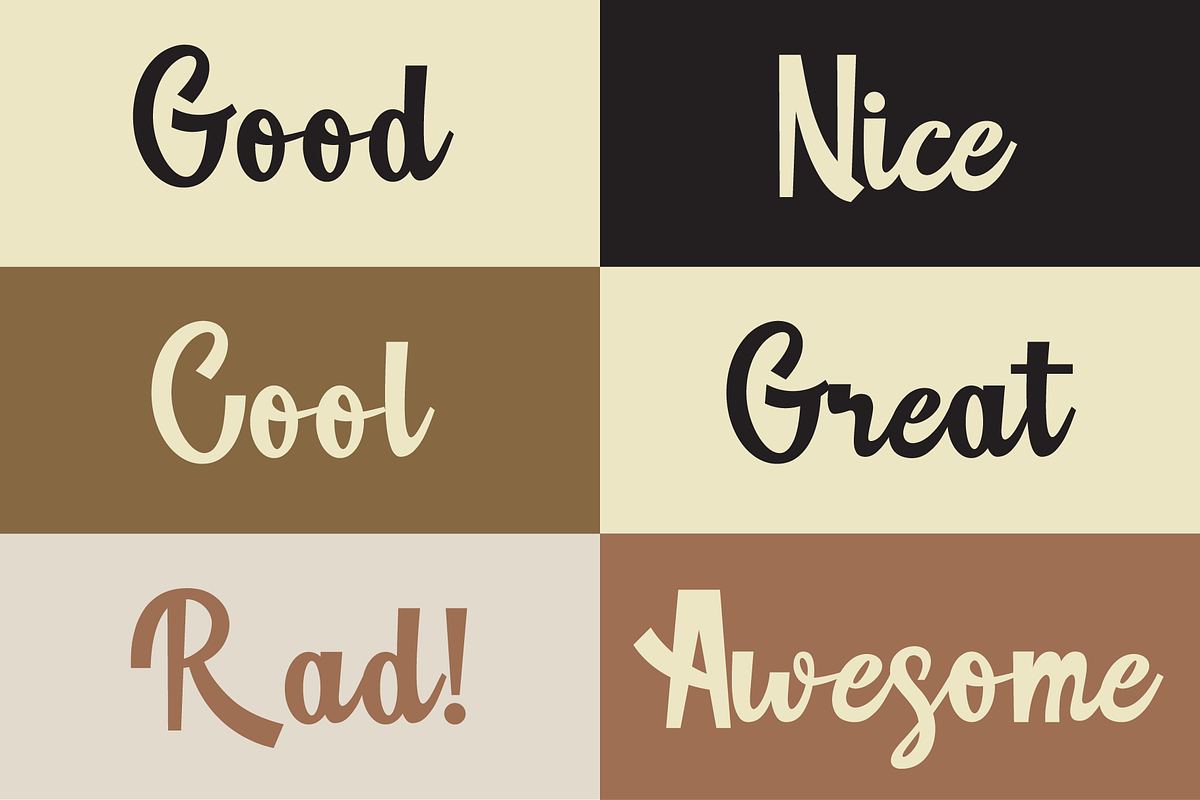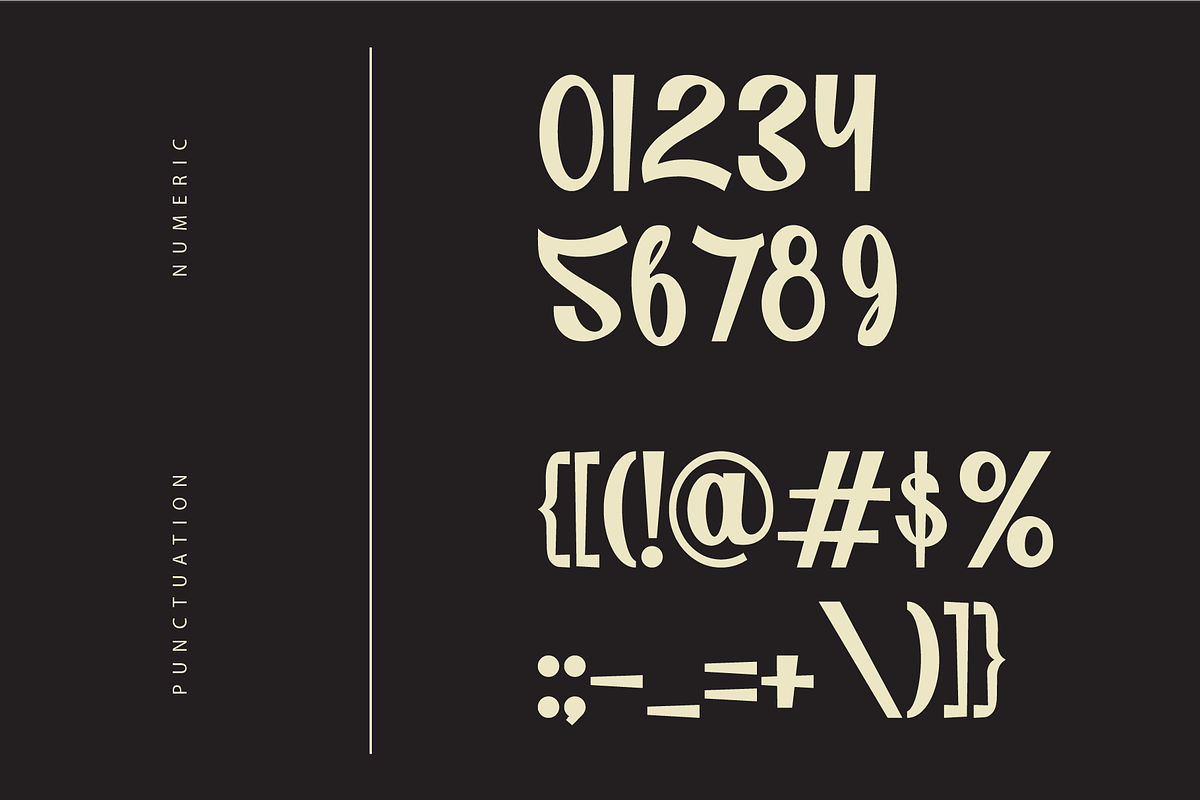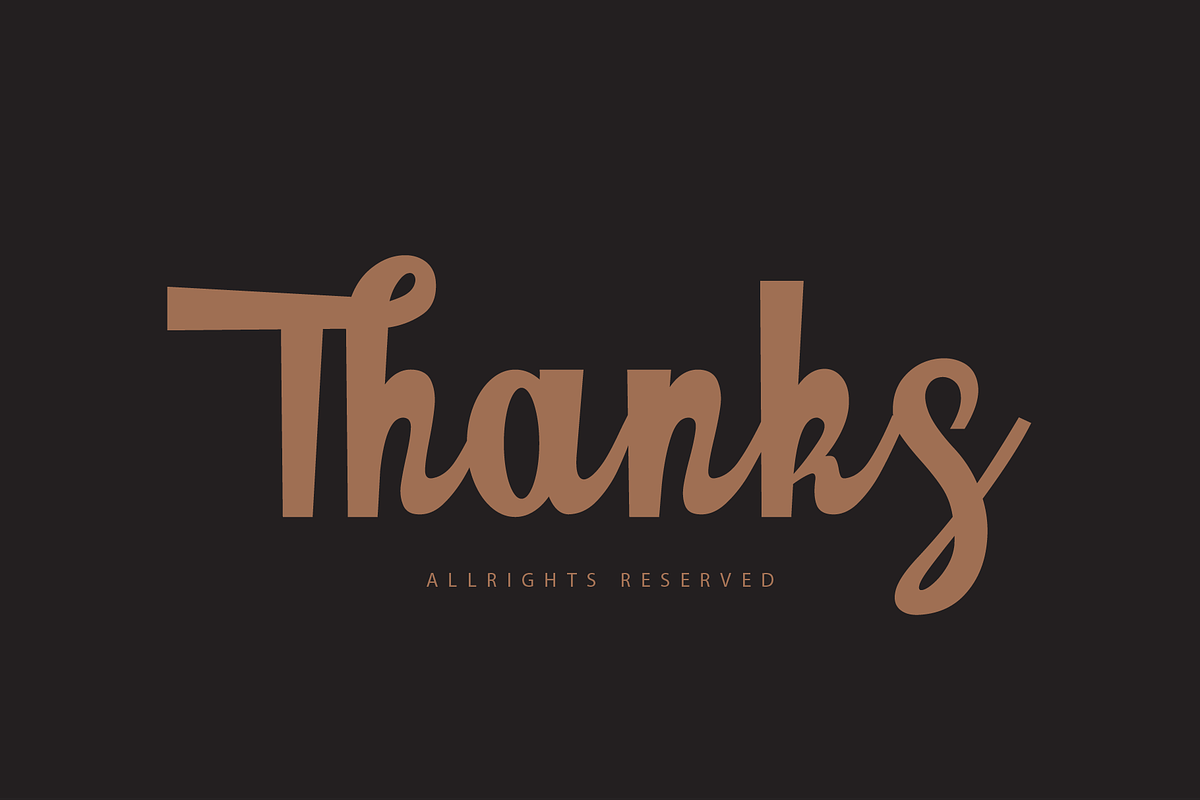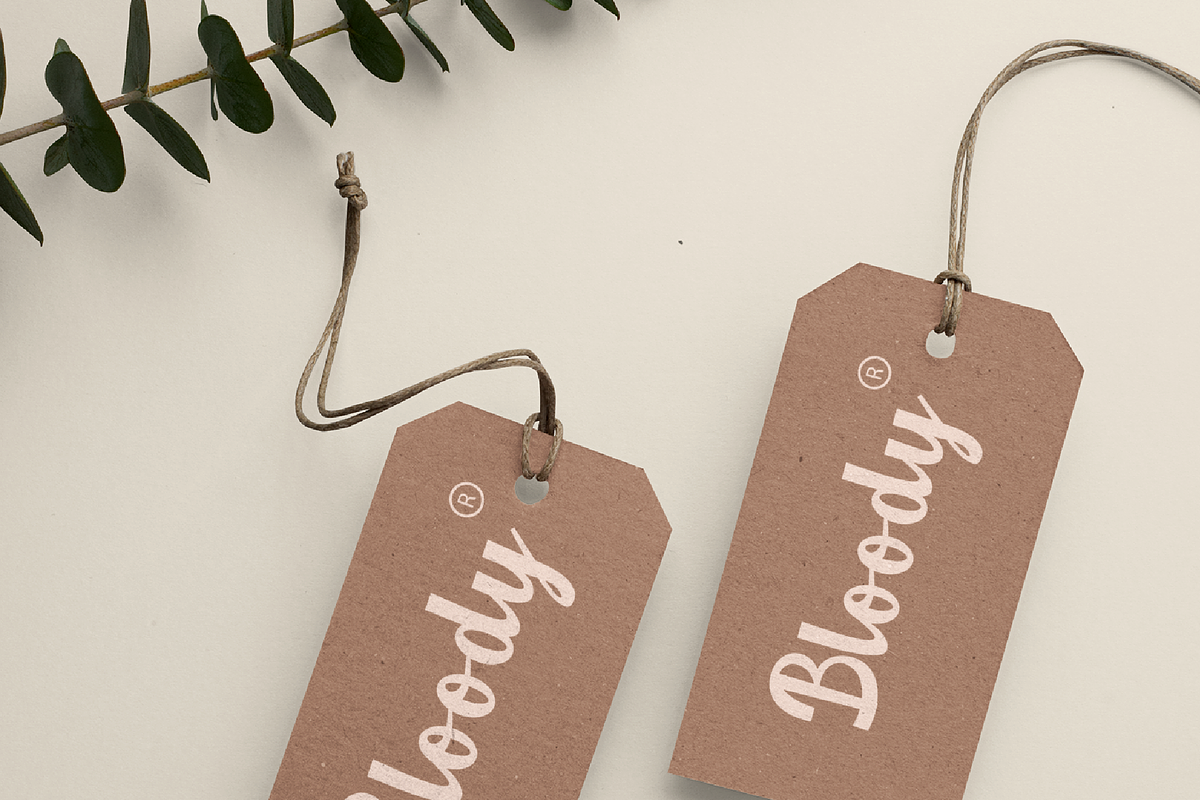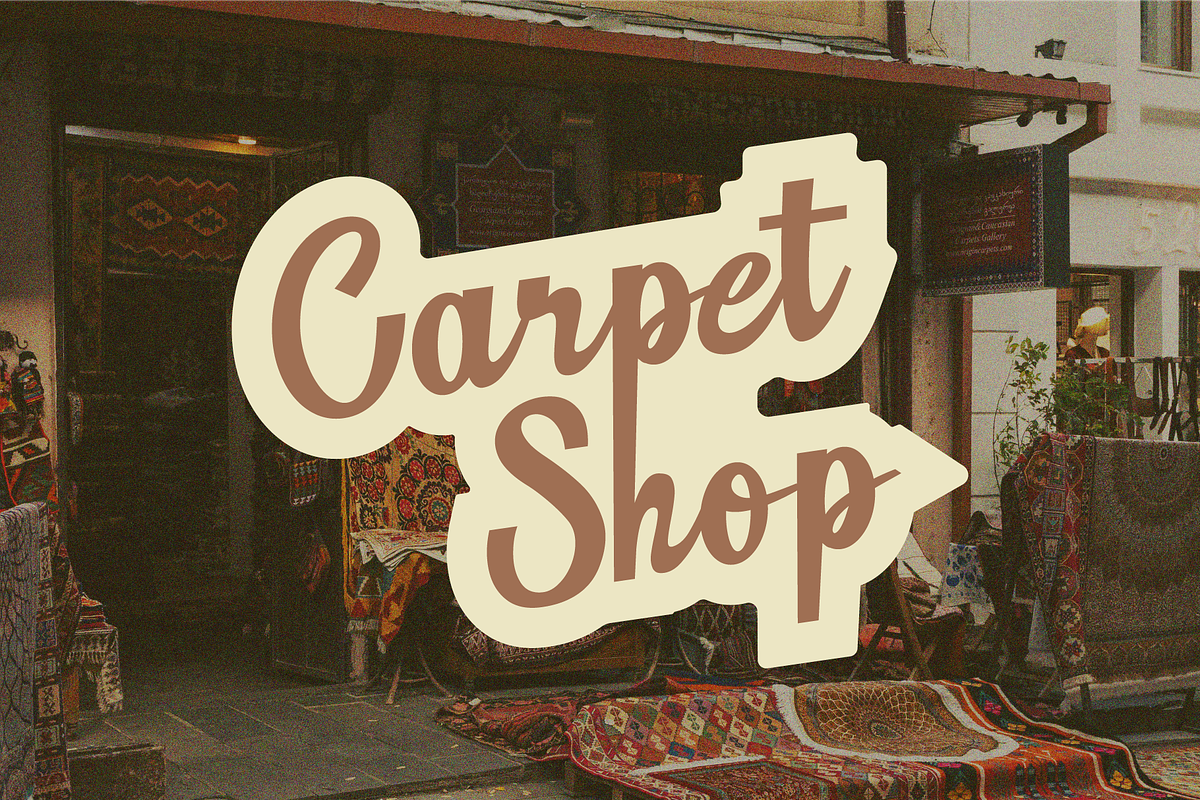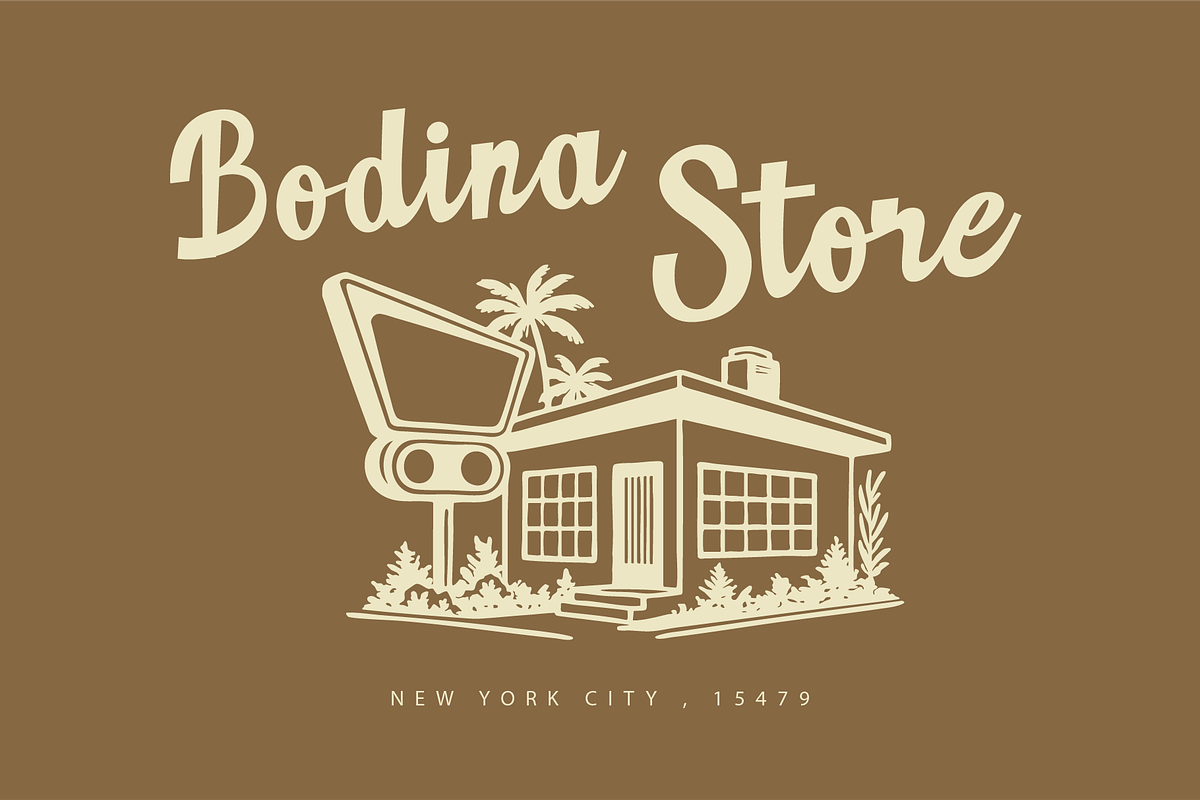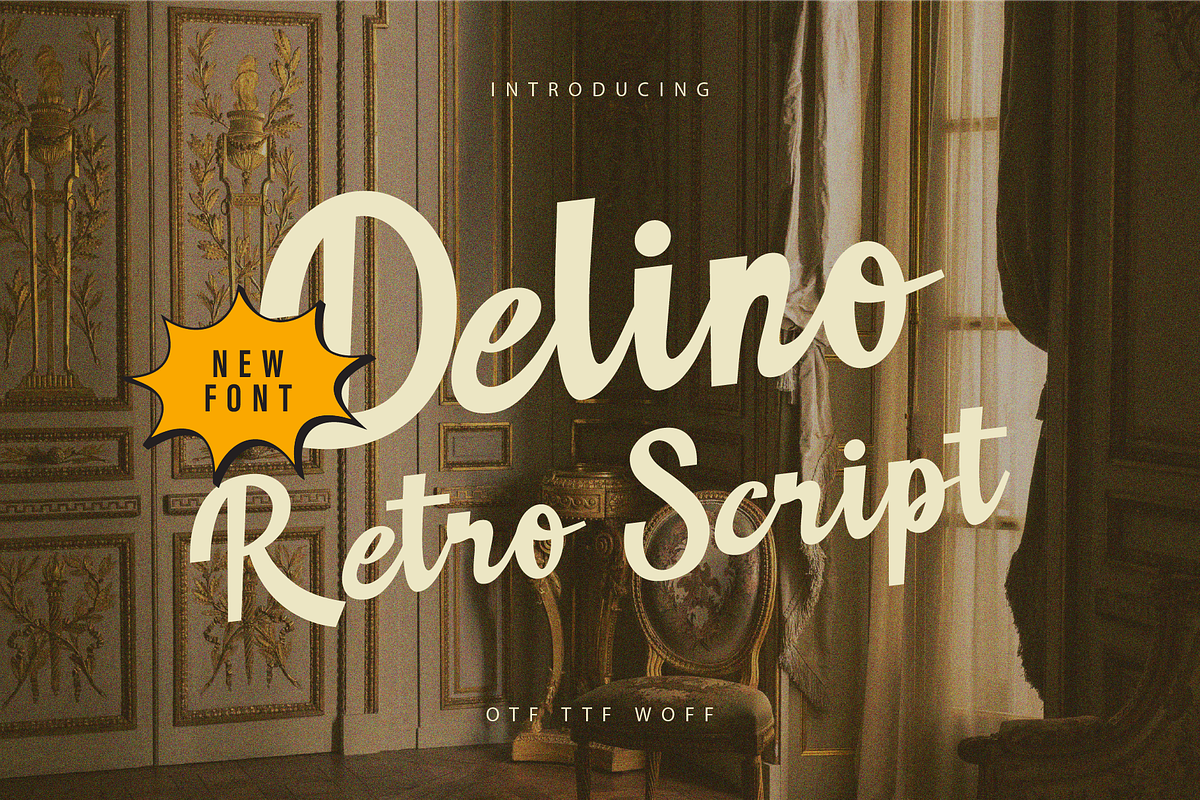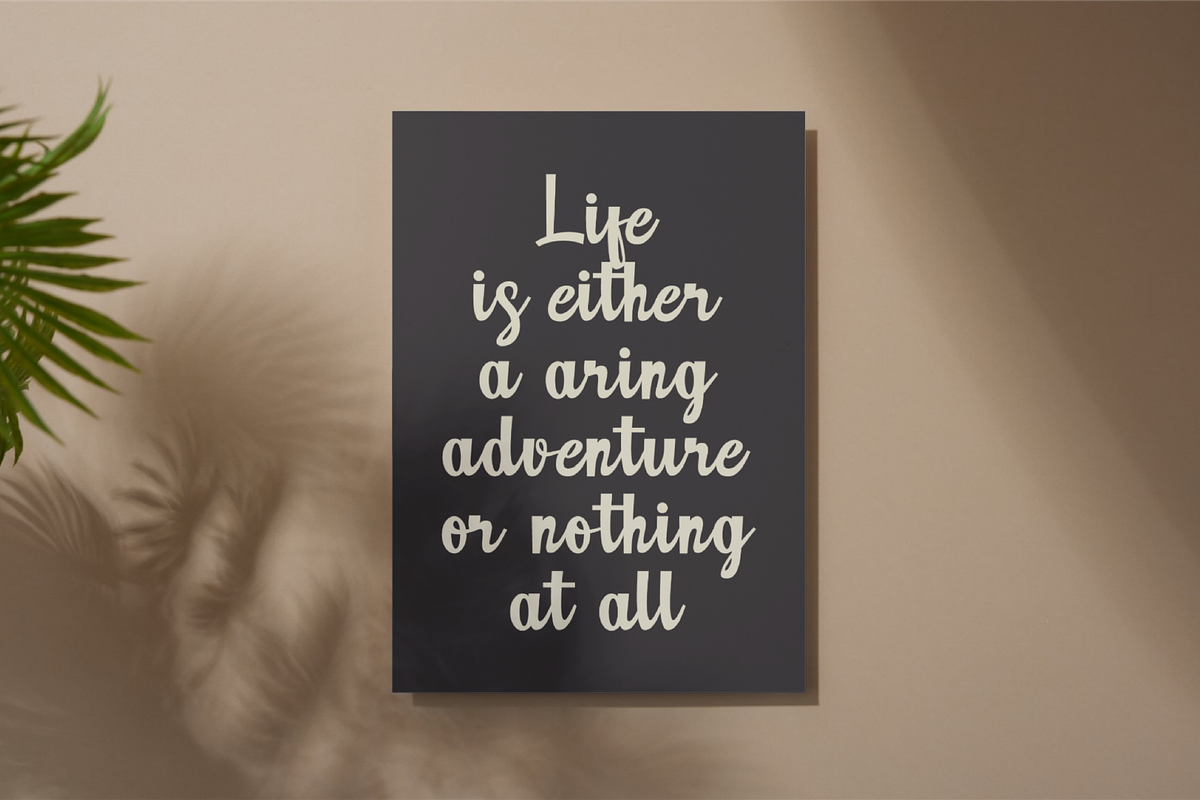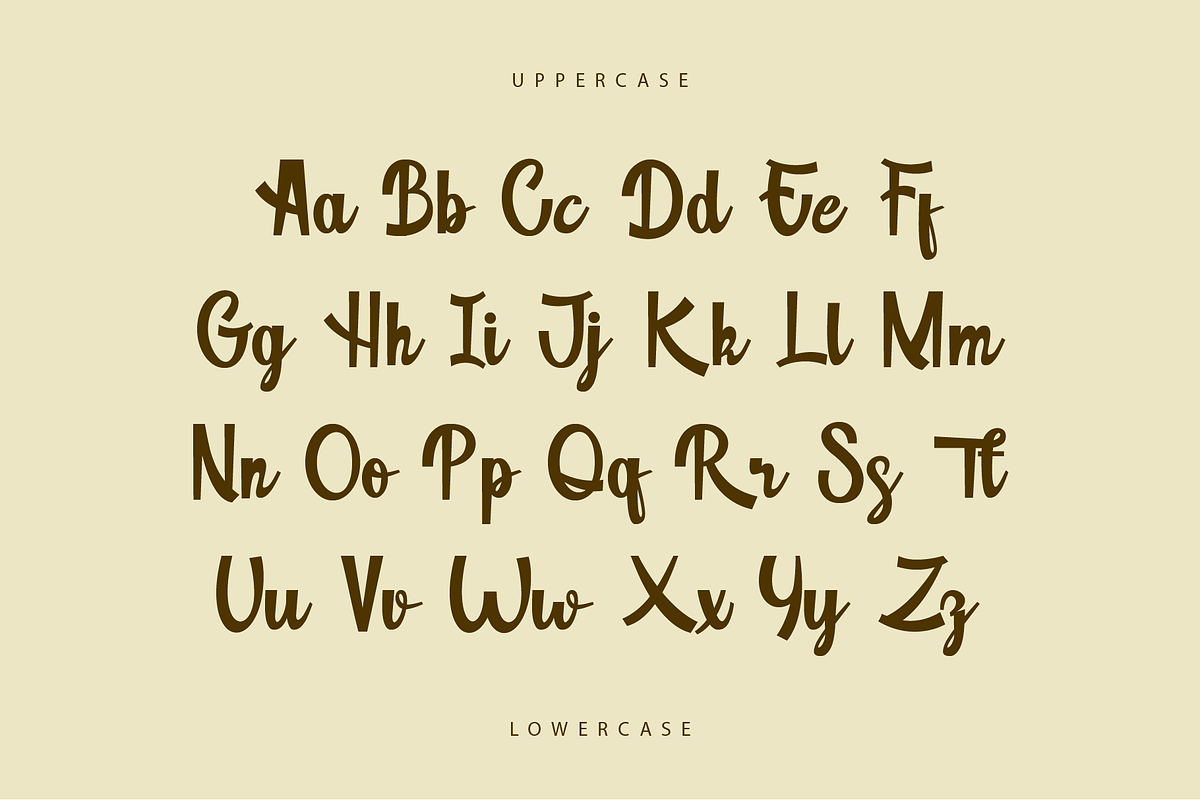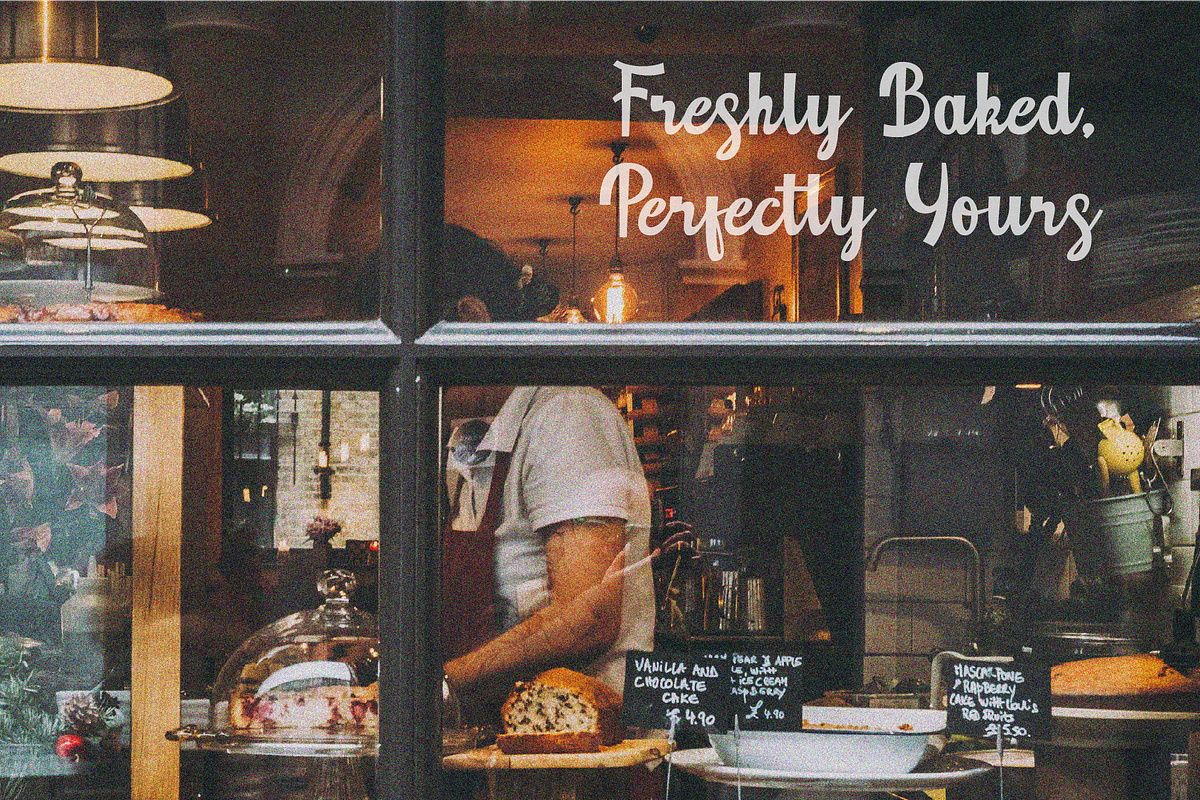
Delino - Retro Script
Delino Retro Script is a stylish and vintage-inspired handwritten font that blends the elegance of classic script fonts with a modern twist. The playful yet sophisticated design of Delino gives it a timeless feel, making it ideal for projects that require a touch of retro charm.